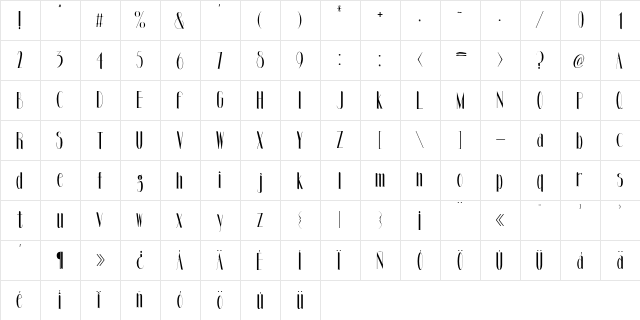
Pride Condensed Regular
Design Context for Pride Typeface
Pride offers clean, dependable letterforms without strong stylistic allegiance, making it a practical choice for designers who need flexibility. Its narrow stance lets it pack a punch even in space-constrained designs.
Pro Tip: Use Pride in both headline and body roles to test its range before committing to a single application.